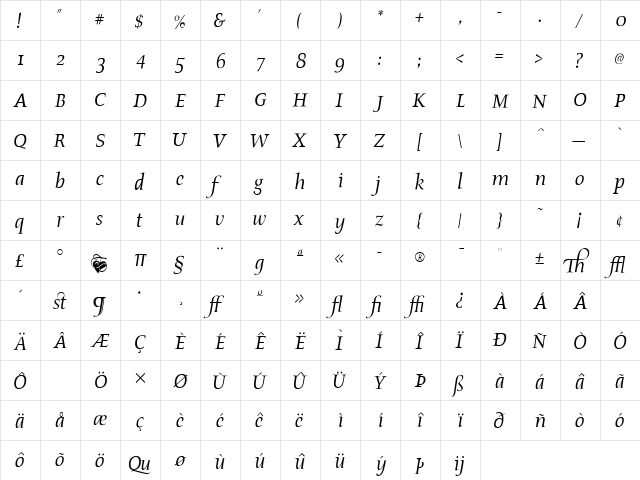
AIProsperaII Italic
AIProsperaII is a composed and adaptable typeface that performs quietly and consistently across a wide range of design contexts. Its italic angle brings a sense of urgency and motion to the letterforms.
Pro Tip: Use AIProsperaII for emphasis, pull quotes, and subheadings where its slanted energy can add rhythm to the layout.